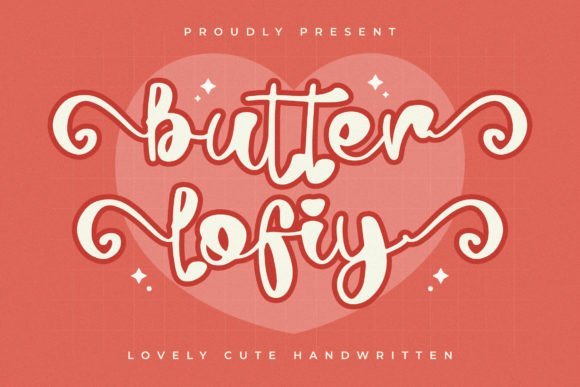
Butter Lofiy Font is a stunning script font that’s designed to add a touch of romance and elegance to your projects. Whether you’re working on a logo, branding project, or simply creating a special card for a loved one, this font is sure to bring a beautiful script taste to your work. As a designer, having access to high-quality fonts like Butter Lofiy Font can be a game-changer, allowing you to take your projects to the next level and impress your clients.
Butter Lofiy Font Key Features
- Font Family: Butter Lofiy Font offers a range of stylish and elegant font styles, ideal for creative projects and designs.
- Character Count: The font contains a comprehensive set of characters, including uppercase and lowercase letters, numbers, and punctuation marks.
- Unique Characteristics: The font’s unique blend of modern and vintage elements makes it perfect for creating eye-catching headlines, titles, and branding materials.
Review: Butter Lofiy Font
I’ve had the chance to play around with the Butter Lofiy font, and I must say it’s got some great qualities. ✨ The first thing that caught my eye was its beautiful, hand-drawn feel. The subtle imperfections and gentle curves give it a unique charm that’s perfect for creative projects. ✨ The font also has a wide range of weights and styles, making it easy to find the perfect version for your design.
- Hand-drawn feel that adds a touch of personality to designs
- Wide range of weights and styles for flexibility
- Perfect for creative projects, such as branding, packaging, and advertising
However, I do have a few reservations about the font. ⚠️ The first issue I noticed was the lack of legibility at smaller font sizes. The font can become a bit blurry and difficult to read, especially in digital environments. ⚠️ Additionally, the font’s unique style can sometimes feel overwhelming or overused, so it’s essential to use it thoughtfully and in moderation.
- Lack of legibility at smaller font sizes
- Potential for overuse due to its unique style
Overall, I think the Butter Lofiy font is a great addition to any designer’s toolkit. While it may have some limitations, its unique charm and versatility make it a great choice for creative projects. With some careful consideration and use, I think this font has the potential to add some real magic to your designs.